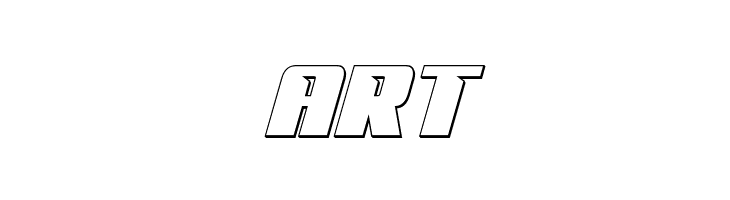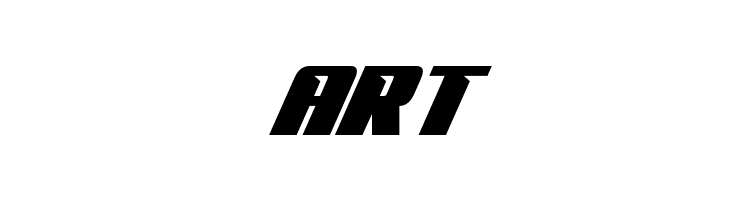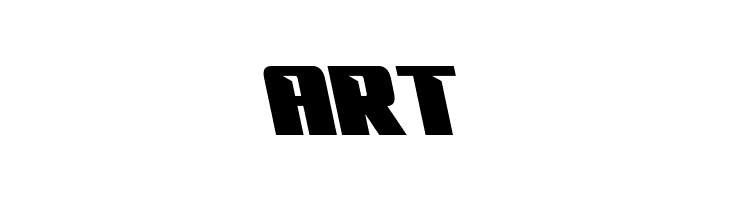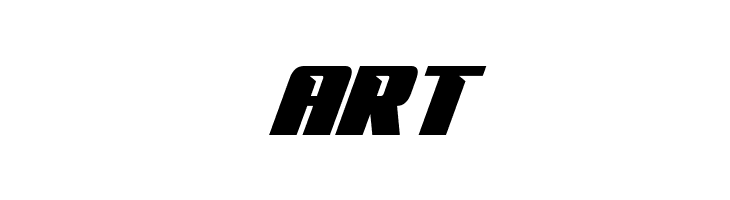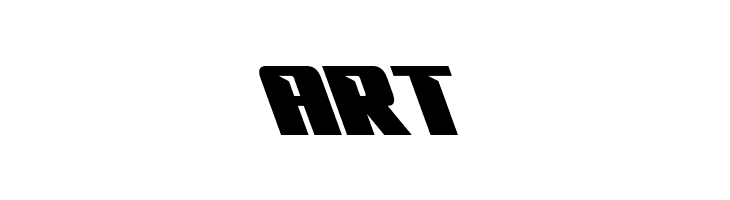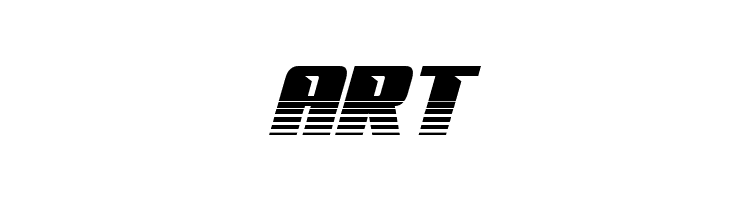
• '89 Speed Affair Outline Ital
A bold, outlined, italic font with a modern, dynamic style.
• '89 Speed Affair Semi-Italic
A bold, italicized font with sharp, angular edges, exuding speed and energy.
• '89 Speed Affair Semi-Leftalic
A bold, angular font with a dynamic, italicized style.
• '89 Speed Affair Super-Italic
A bold, italicized font with a dynamic, speedy style.
• '89 Speed Affair Super-Left
A bold, slanted font with a dynamic, futuristic style.
• '89 Speed Affair Twotone
A bold, two-tone font with a dynamic, striped design for a sense of speed.
• '89 Speed Affair Twotone Ital
A bold, italicized font with a two-tone effect and dynamic, speedy design.
• '89 Speed Affair Ultra Italic
A bold, italicized font with a dynamic and modern style.